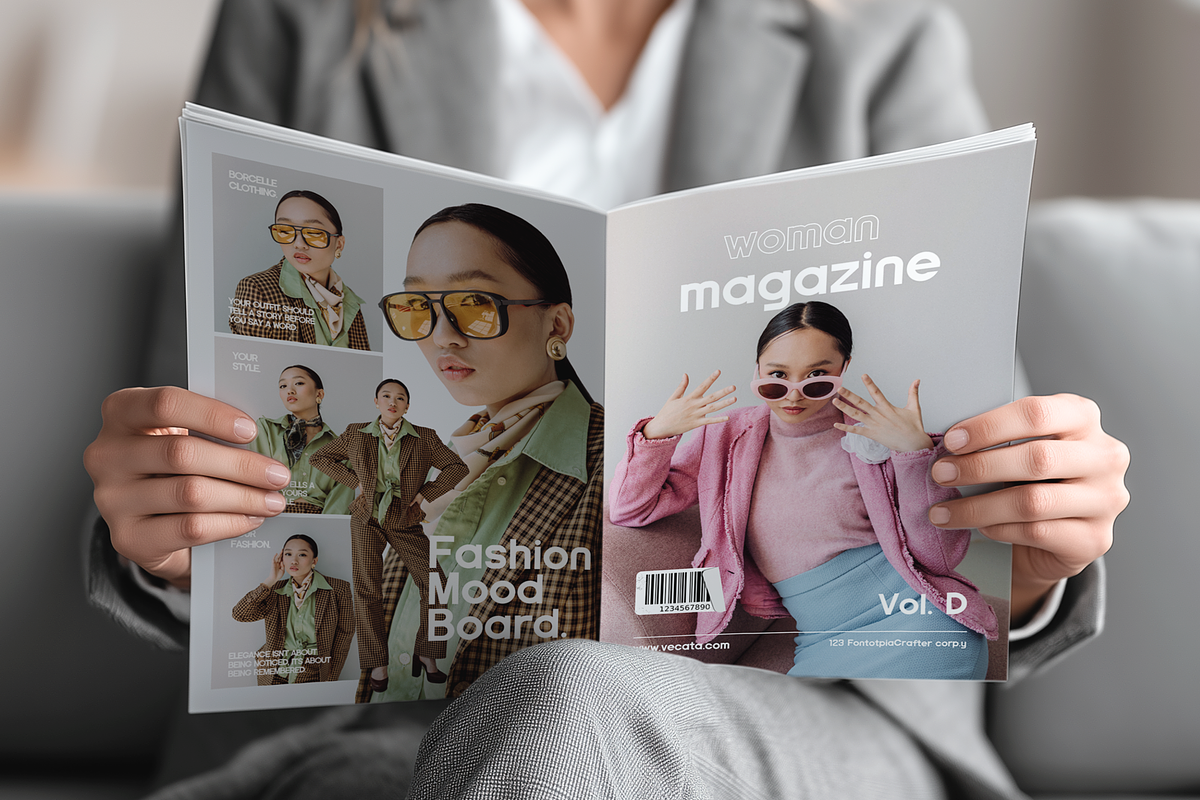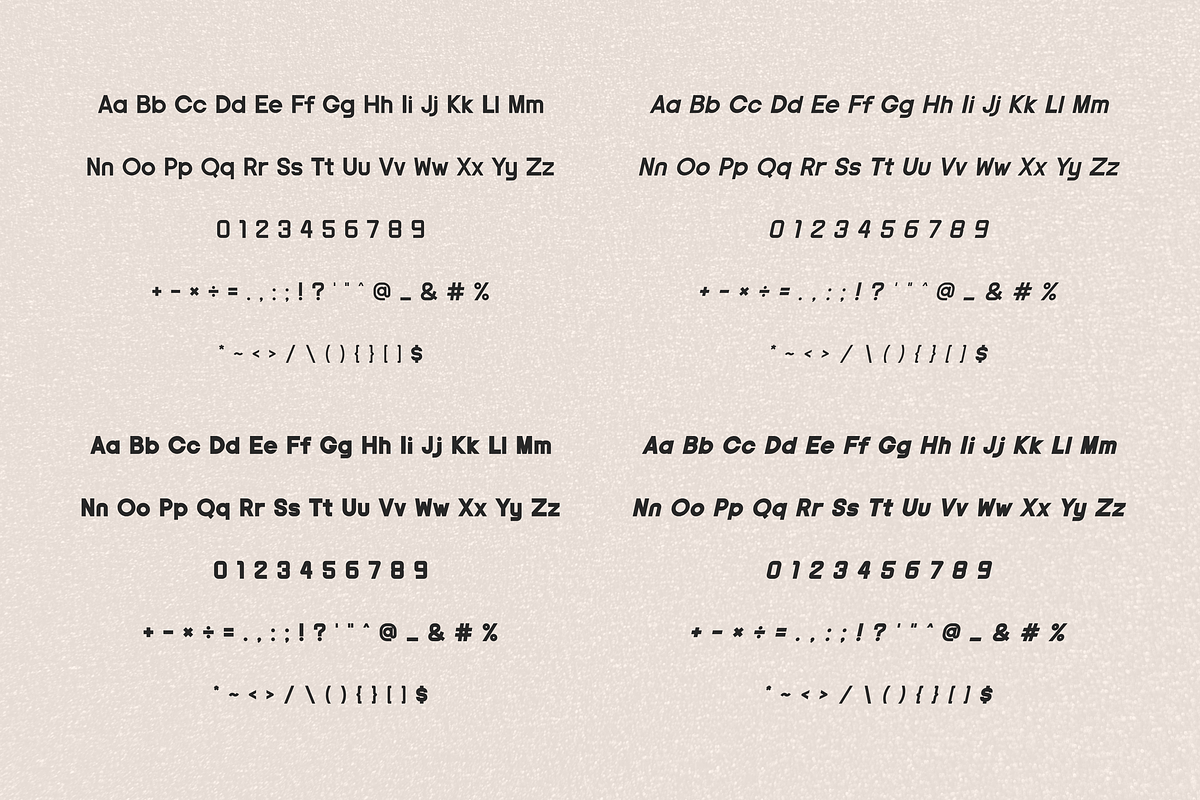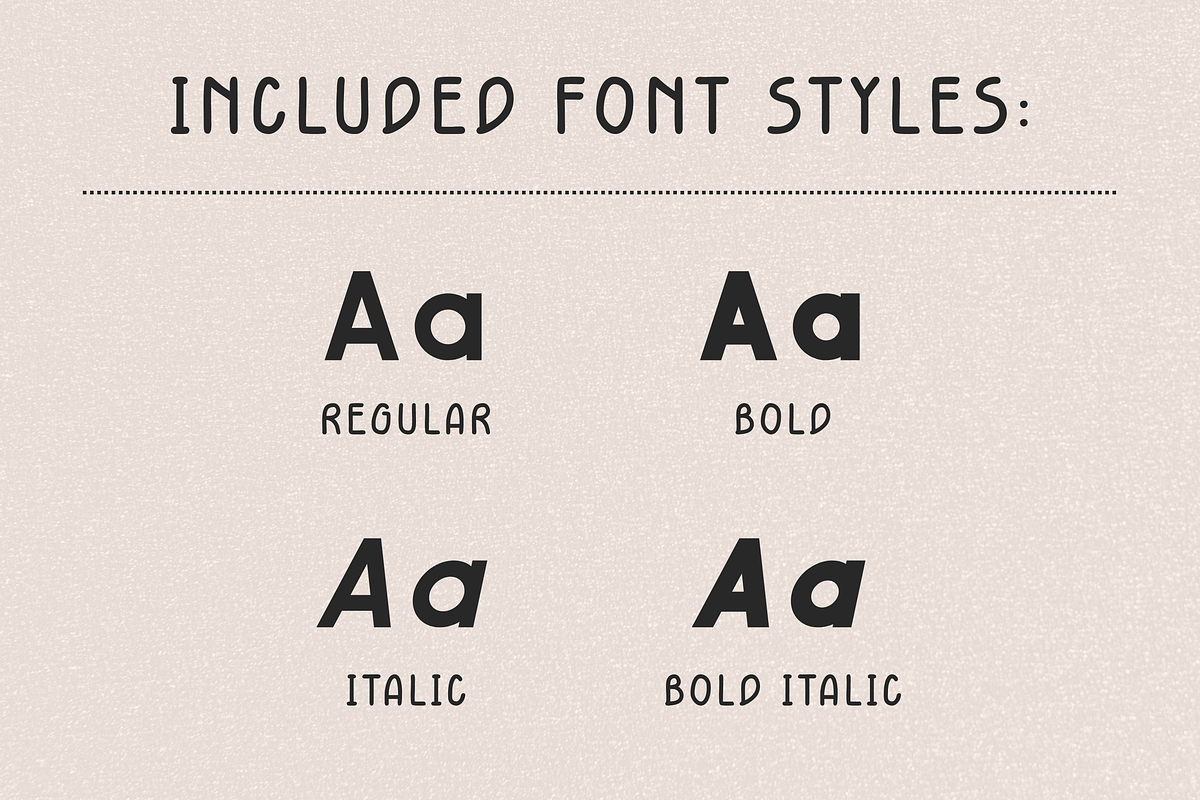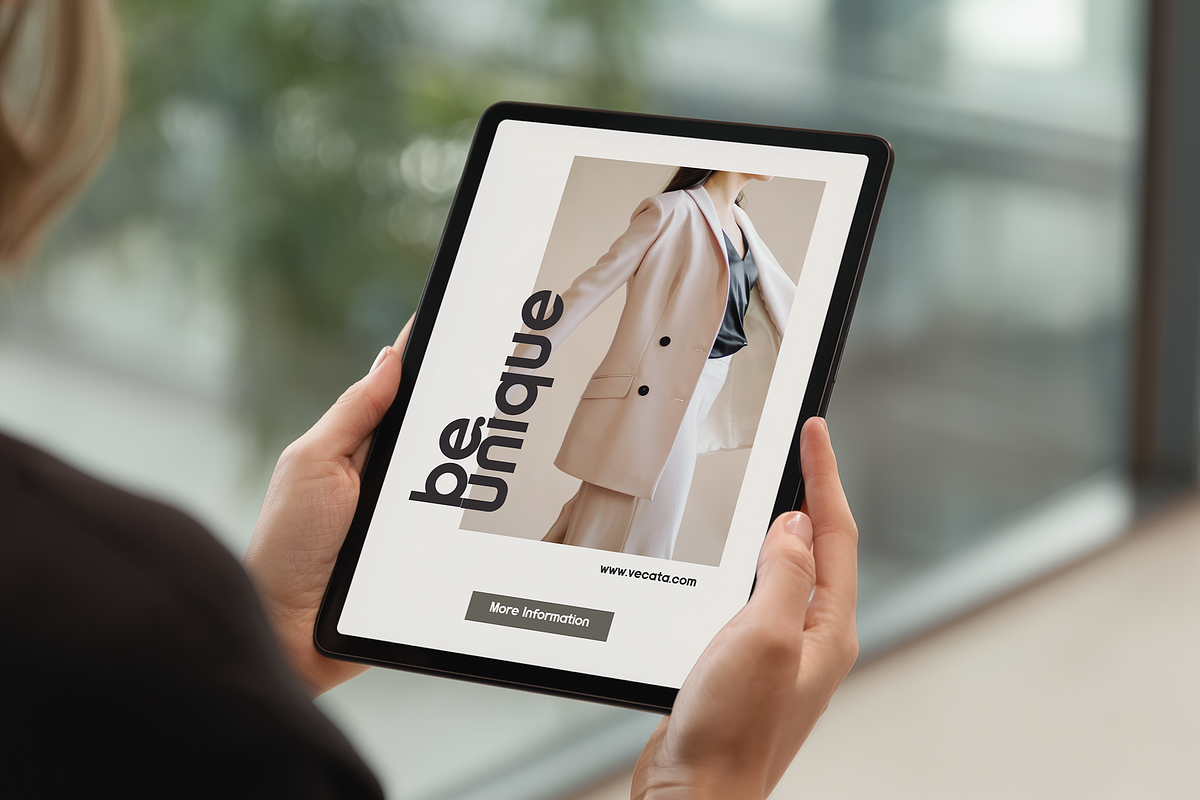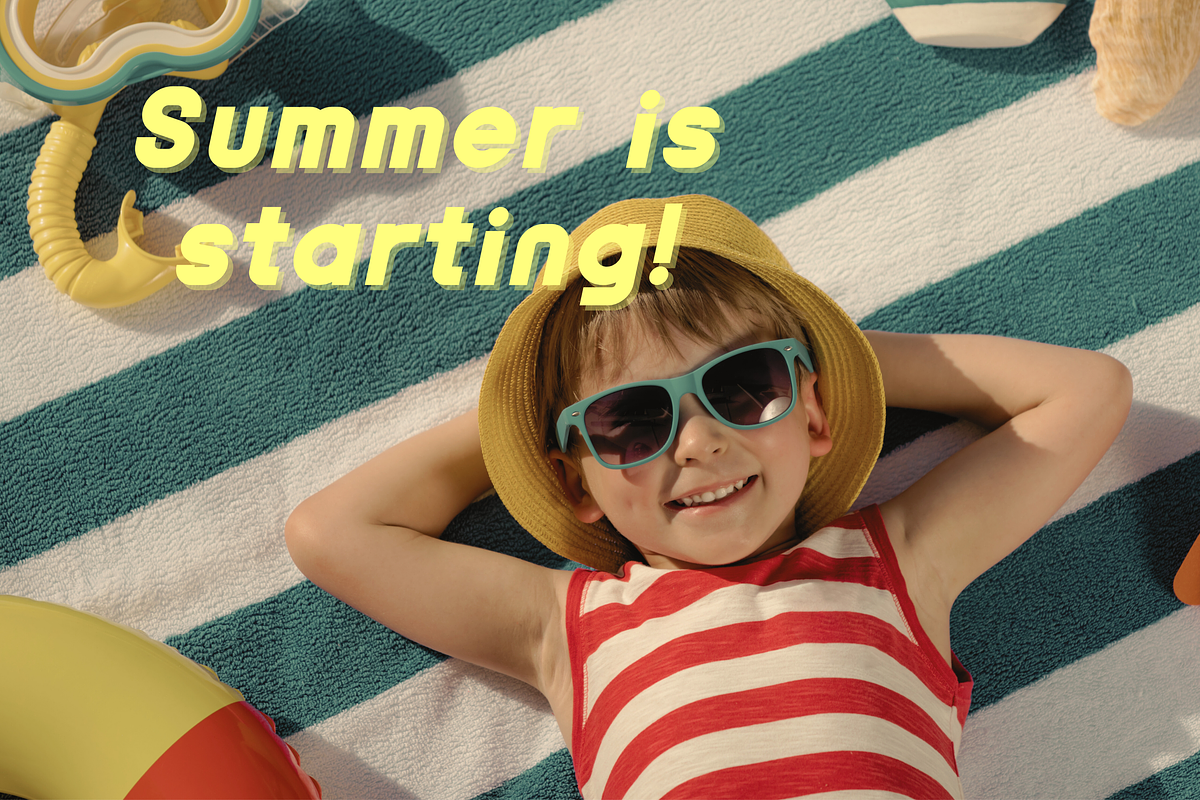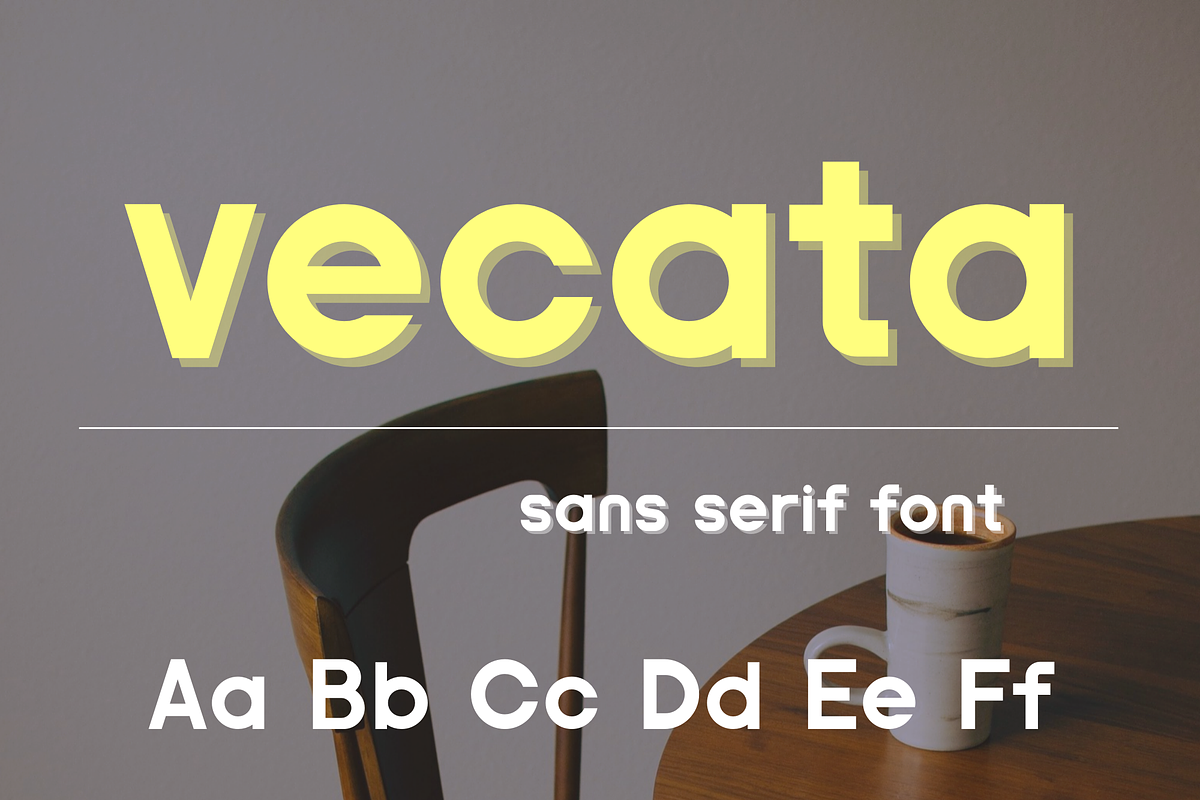
Modern Sans Serif Font - Vecata
Vecata – Modern Sans Serif Typeface
Vecata is a clean, modern sans serif font designed for creators who love minimalist aesthetics with strong visual impact. Its smooth curves and balanced letterforms make it perfect for both bold headlines and refined branding projects. Whether you're designing a logo, social media content, website, packaging, or editorial layout — Vecata delivers a professional and contemporary look.